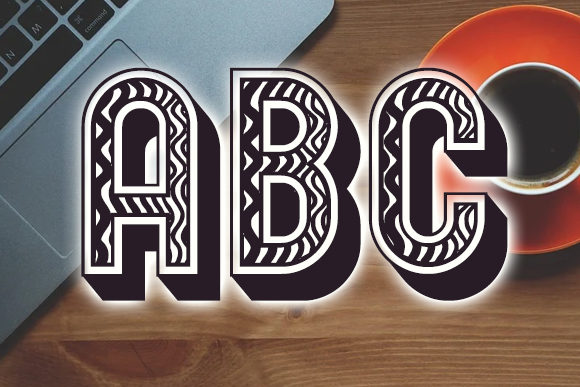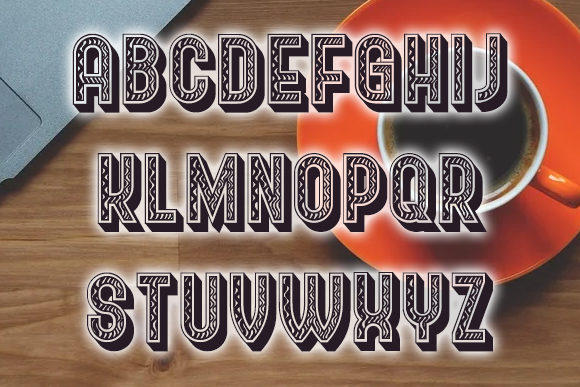
Have you ever been working on a project and suddenly, that perfect font pops into your head, bringing your entire design together? It’s a moment every designer knows and loves. You see it, you feel it, and you know it’s going to make your project stand out. For me, it was when I stumbled upon the Chancellery Font. Its bold, futuristic style instantly caught my attention and sparked a wave of creativity.
Chancellery Font is more than just a stylish addition to your design – it’s a powerful tool to elevate your ideas and make them truly unforgettable. With its techno-inspired aesthetic, it’s perfect for projects that need a bit of edginess and sophistication. Whether you’re working on a futuristic concept, a sci-fi novel, or a cutting-edge tech startup, Chancellery Font is sure to bring your vision to life.
Key Features of Chancellery Font
- Unique Characteristics: Chancellery Font features a classic and elegant design, with subtle flair and ornate details, making it ideal for formal and professional applications.
Review of Chancellery Font
Overall, I think Chancellery Font has some great qualities that make it suitable for certain projects. Here are a few things that work well:
- ✨ Elegant and sophisticated appearance: Chancellery Font has a classic, high-end feel to it that would be perfect for luxury brands or high-end products.
- ✨ Wide range of weights and styles: The font family includes various weights, from light to bold, as well as different styles, which gives designers a lot of flexibility when choosing the right look.
- ✨ Good legibility: Chancellery Font is easy to read, even at smaller font sizes, which is essential for any font used in body text.
However, there are a few limitations that might make it less suitable for certain projects:
- ⚠️ Limited language support: Chancellery Font is primarily designed for Latin-based languages and might not be suitable for languages that require more complex scripts or character sets.
- ⚠️ Limited web font compatibility: While Chancellery Font is available as a web font, it might not work well with certain browsers or platforms, which could lead to compatibility issues.
Overall, I think Chancellery Font is a great choice for projects that require an elegant, sophisticated look, but it’s not the best option for projects that require extensive language support or web font compatibility.
Tips for Getting the Most Out of Chancellery Font
Chancellery Font is ideal for formal and elegant designs. To get the most out of it:
- Use it in combination with other elegant fonts for a sophisticated look.
- Use it for headings and titles to add a touch of sophistication to your design.
Chancellery Font is commonly used in:
- Formal invitations and event materials.
- Business cards and corporate station